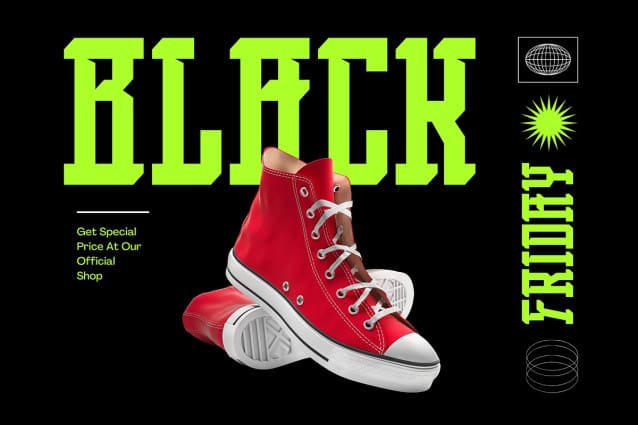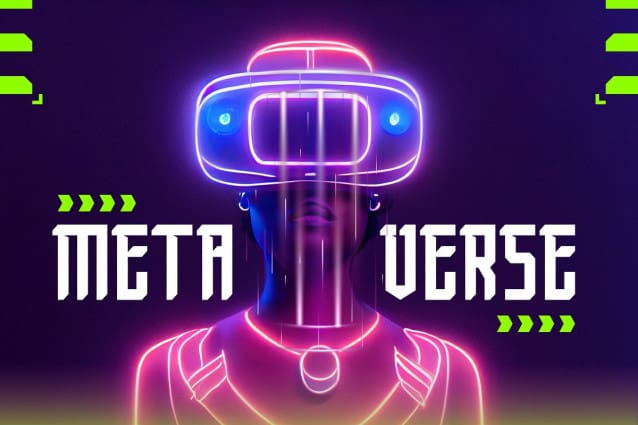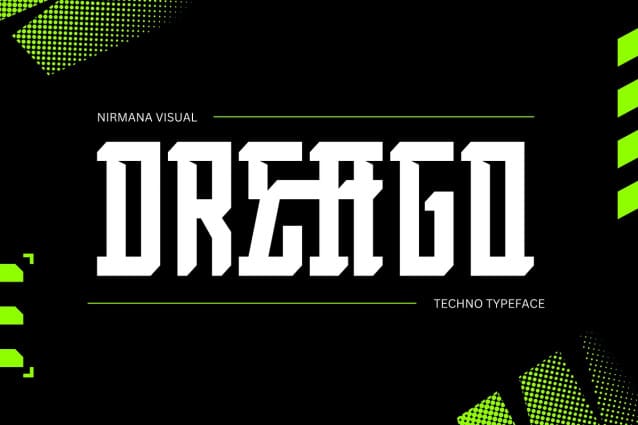
Dreago Techno Font
Dreago Techno Font is a techno display font characterized by its futuristic and edgy aesthetic, making it ideal for projects that aim to capture a sense of modernity and digital innovation. This font features bold, geometric shapes with sharp edges and clean lines, giving it a sleek and high-tech look. Each letterform is crafted to reflect the vibe of science fiction and cutting-edge technology, often incorporating unique angles and stylized cuts that enhance readability while giving it a distinctive personality.
Dreago works particularly well in designs for gaming, tech startups, sci-fi posters, and any digital project where a bold, commanding presence is desired. Its robust structure is designed to stand out on both digital and print platforms, lending itself well to large headings, logos, and branding materials where a dynamic and forward-looking impression is needed. Dreago Techno Font offers beautiful typographic harmony for a diversity of design projects, including logos & branding, social media posts, advertisements & product designs.